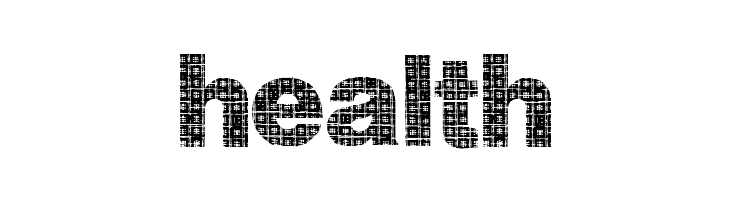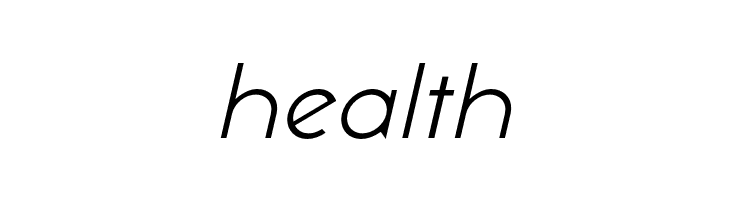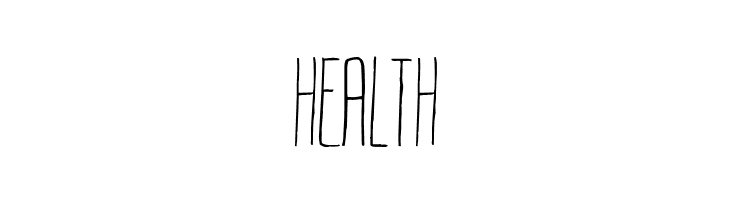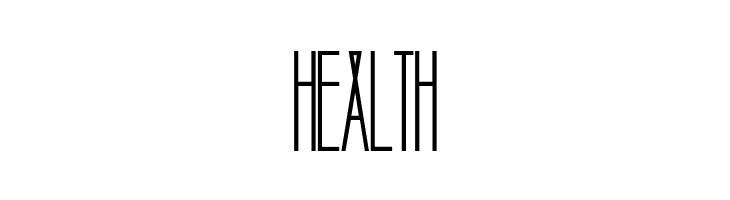
A sleek, modern hairline italic font with a clean and elegant design.
A decorative font with letters formed by jewel-like shapes, perfect for artistic projects.
A bold font with a distinctive plaid pattern filling each character.
A modern, elongated font with thin strokes and tight spacing.
A sleek, modern oblique font with smooth curves and clean lines.
A modern, geometric font with a sleek and artistic design.
A bold, punk-inspired font with thorn-like embellishments for a rebellious look.
A tall, narrow font with thin, consistent strokes and a modern, elegant style.
A modern, elongated font with high contrast and narrow characters.